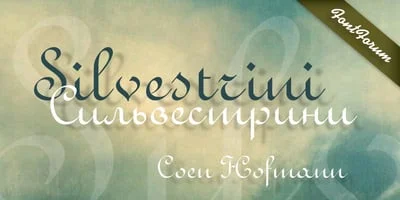
Silvestrini Font
Silvestrini Font is ideal for Italian heritage branding, luxury fashion campaigns, sophisticated restaurant menus, premium wine labels, artisan craftsmanship marketing, elegant interior design projects, high-end cultural exhibitions, refined hospitality communications, luxury travel promotions, and distinguished European lifestyle advertising.
What makes Silvestrini Font exciting is its Italian sophistication that perfectly captures the timeless elegance and cultural refinement found in Italian design heritage and Mediterranean luxury traditions. This typeface features graceful letterforms with Italian proportions and cultural details that evoke the artistic mastery and sophisticated craftsmanship of Italian Renaissance tradition. The font's cultured personality and Italian authenticity make it ideal for luxury brands seeking to convey heritage, sophistication, and the refined elegance that comes from Italian cultural excellence and Mediterranean lifestyle sophistication.
Silvestrini Font family includes sophisticated weight variations and Italian-inspired alternatives that enhance its cultural appeal while providing design flexibility for luxury and heritage applications. The font features elegant ligatures, Italian-themed ornaments, and cultural character variations that create authentic Mediterranean atmosphere for luxury and cultural branding.
Luxury Italian brands and cultural institutions consistently select Silvestrini Font for projects requiring authentic Italian appeal and cultural credibility. The font's sophisticated character excels in applications targeting affluent consumers who appreciate genuine Italian heritage and Mediterranean lifestyle sophistication. Whether you're designing for Italian fashion houses, luxury hospitality, or cultural heritage projects, this distinguished typeface delivers the Italian authenticity and cultural elegance that resonates with audiences seeking genuine Mediterranean luxury and the sophisticated refinement that defines Italian design excellence and cultural heritage traditions.